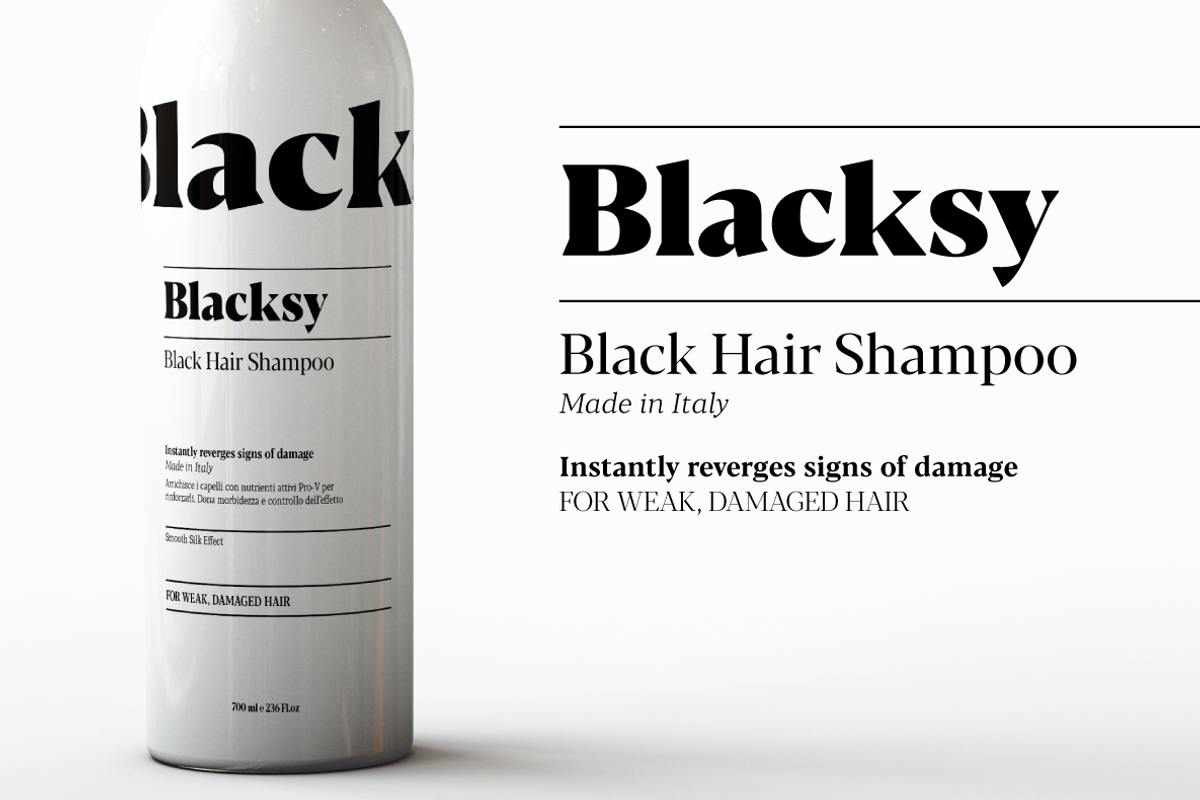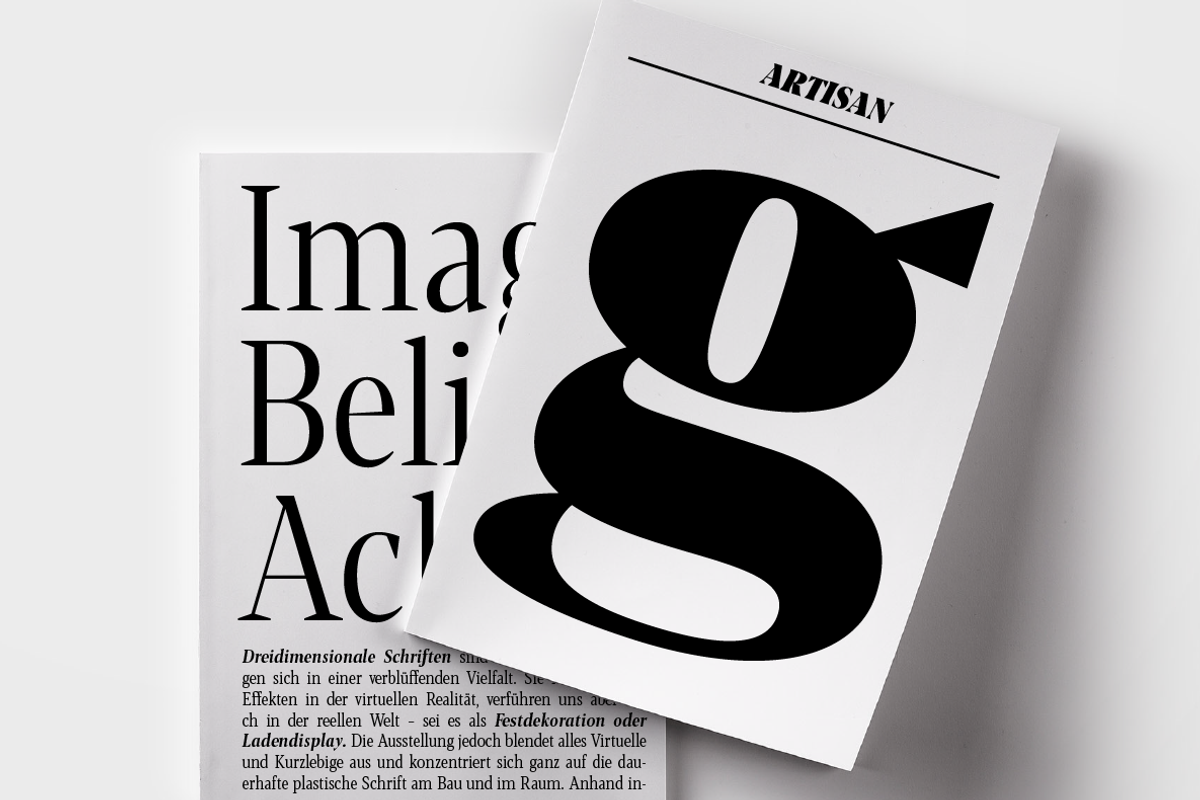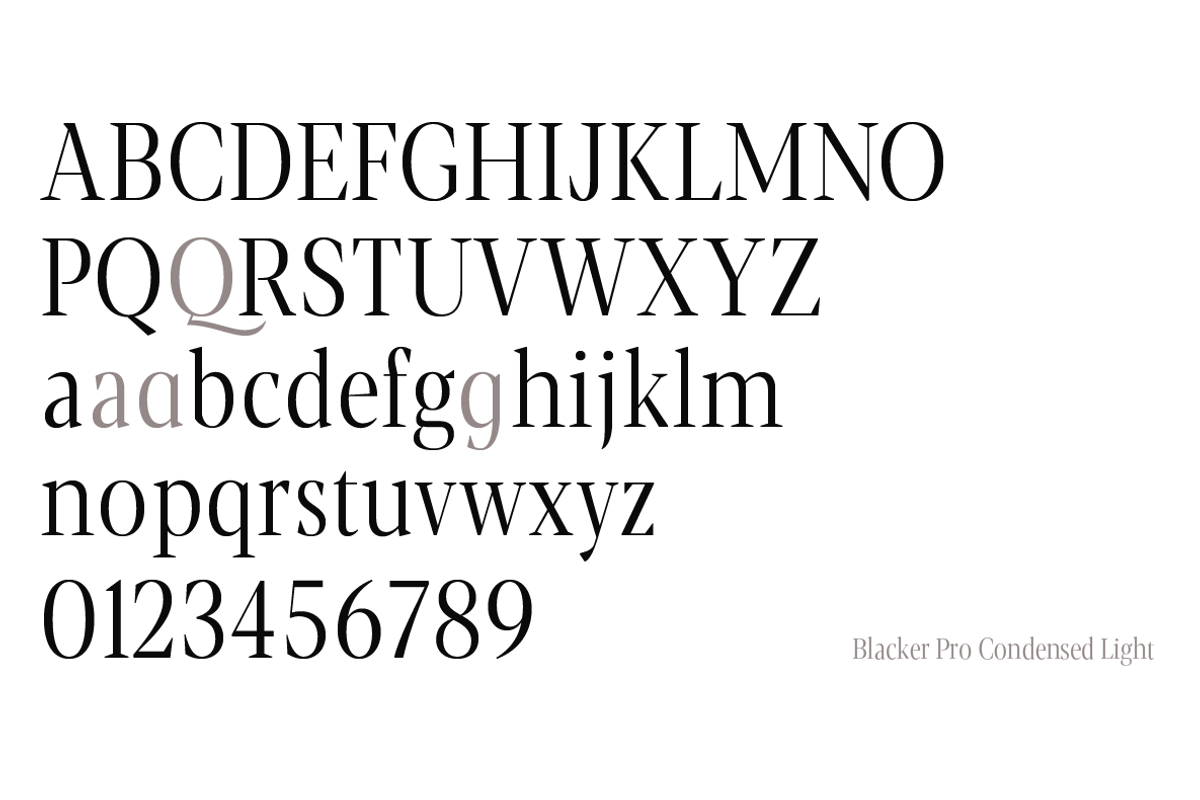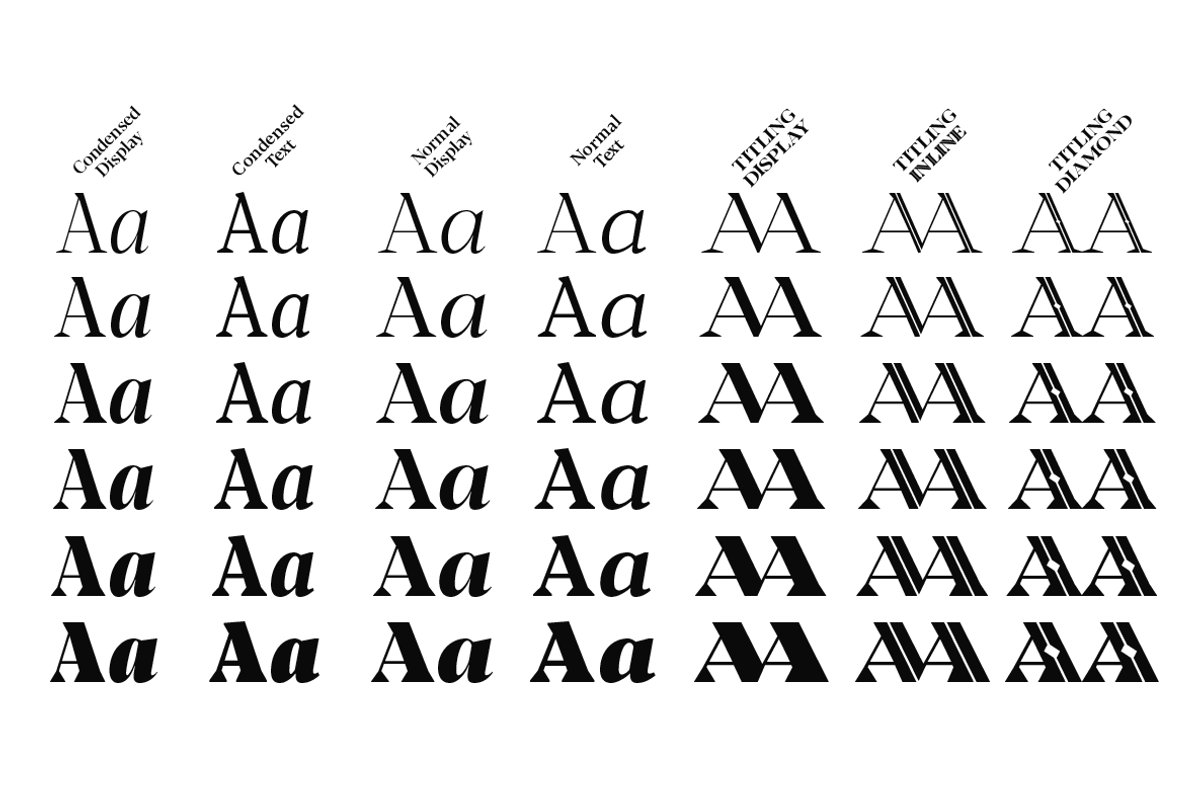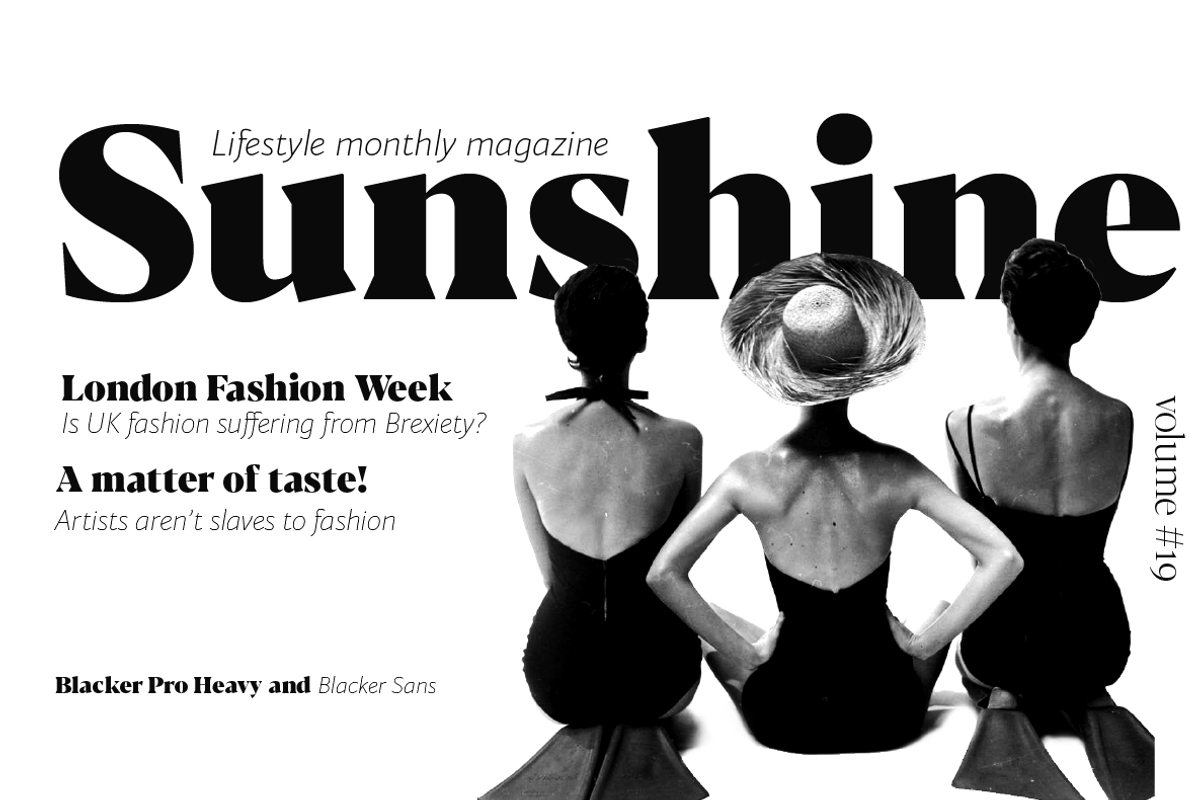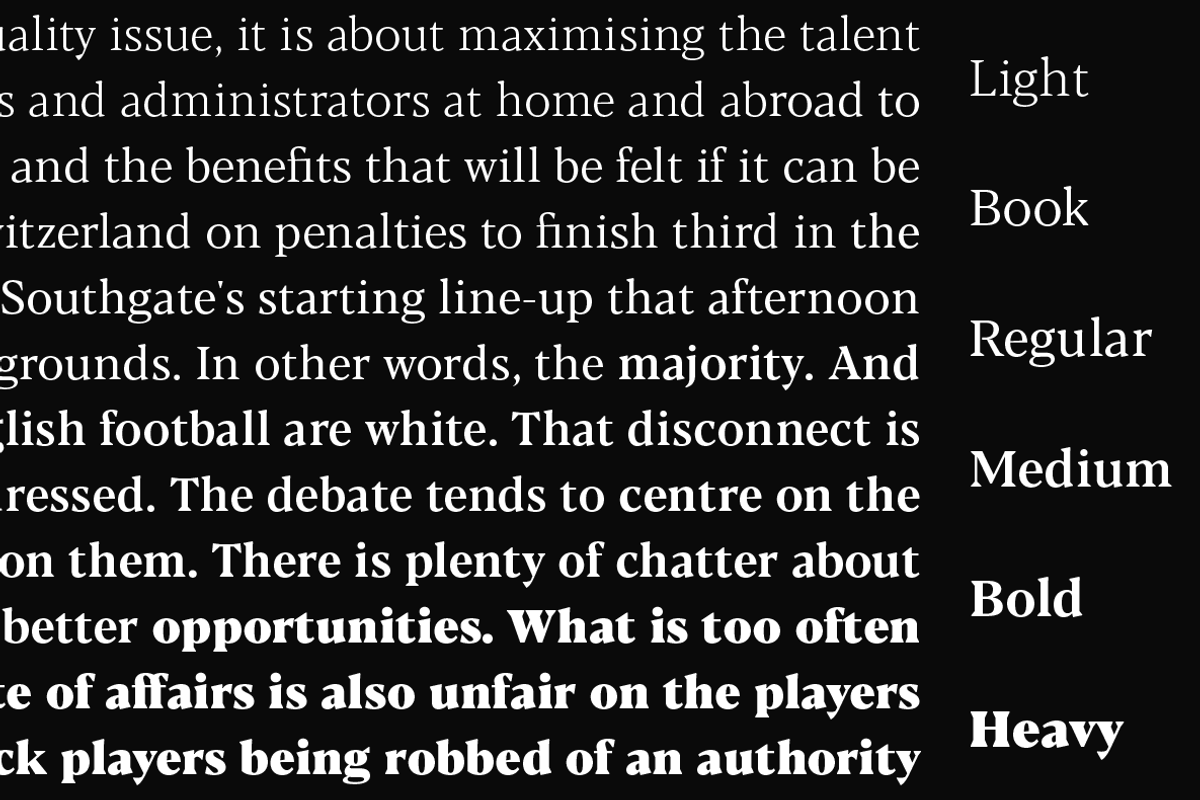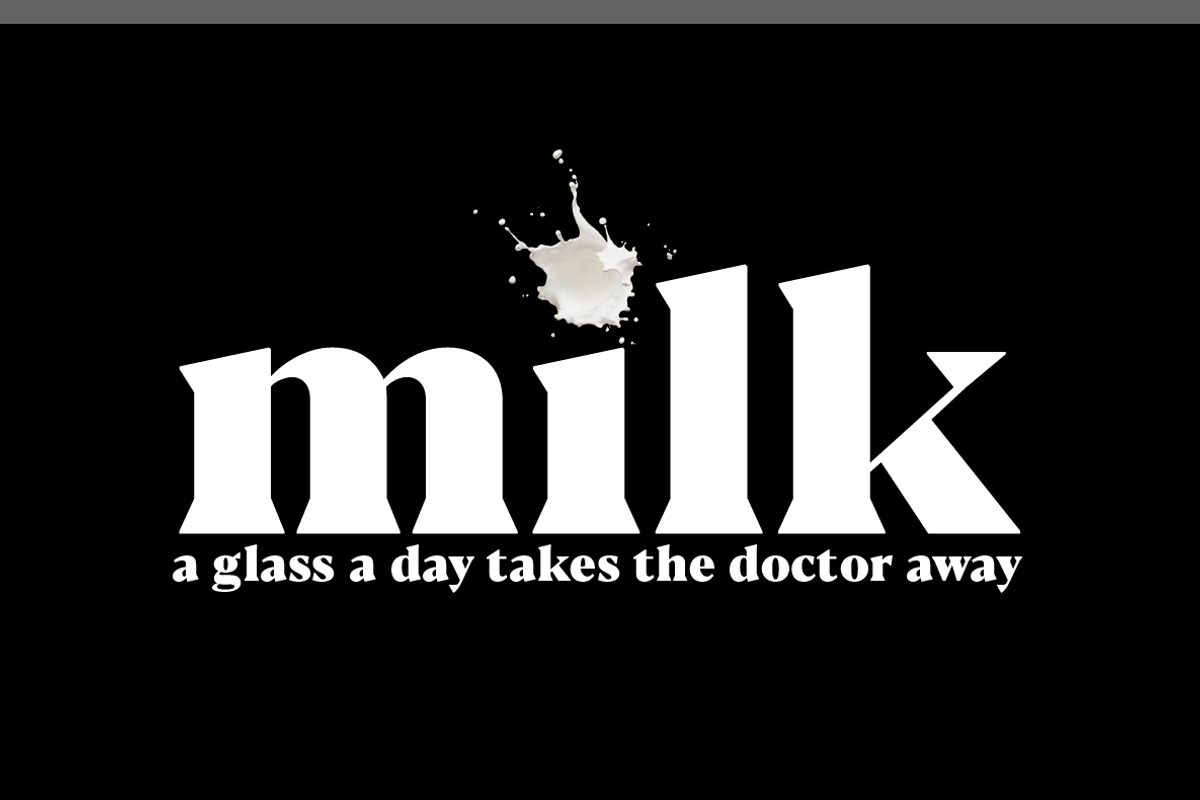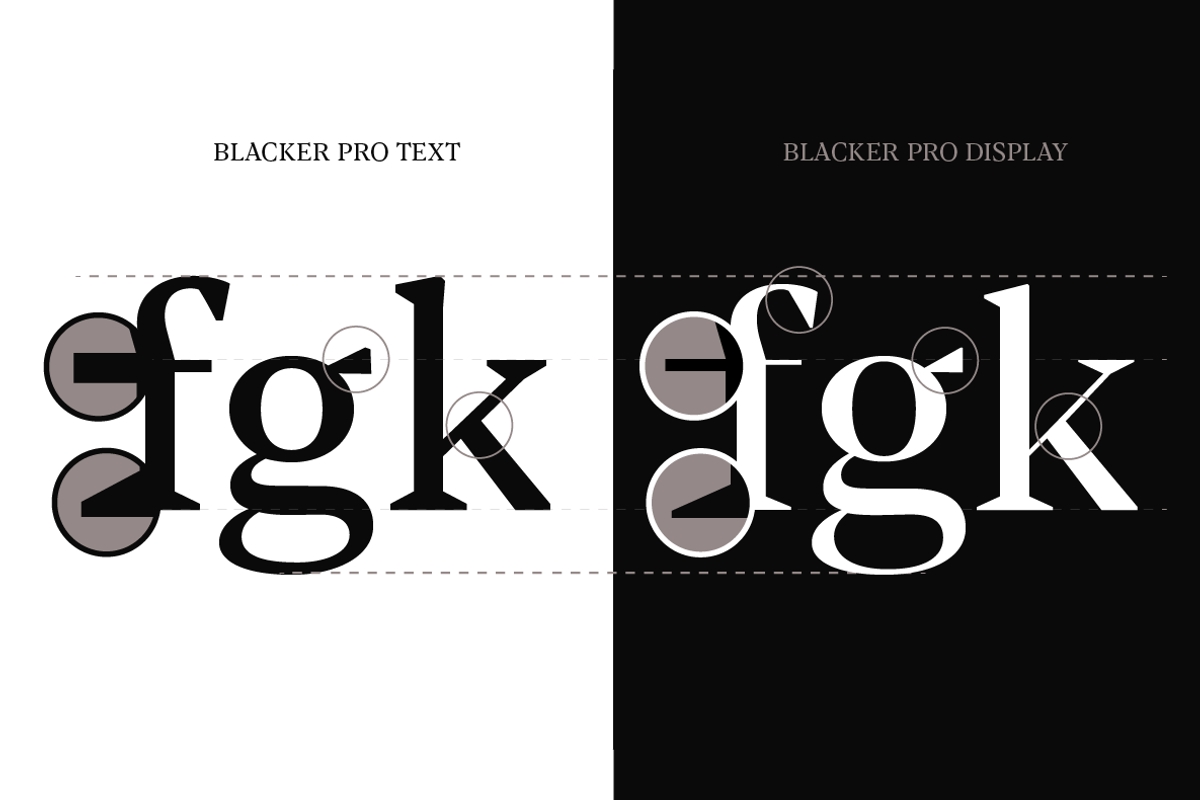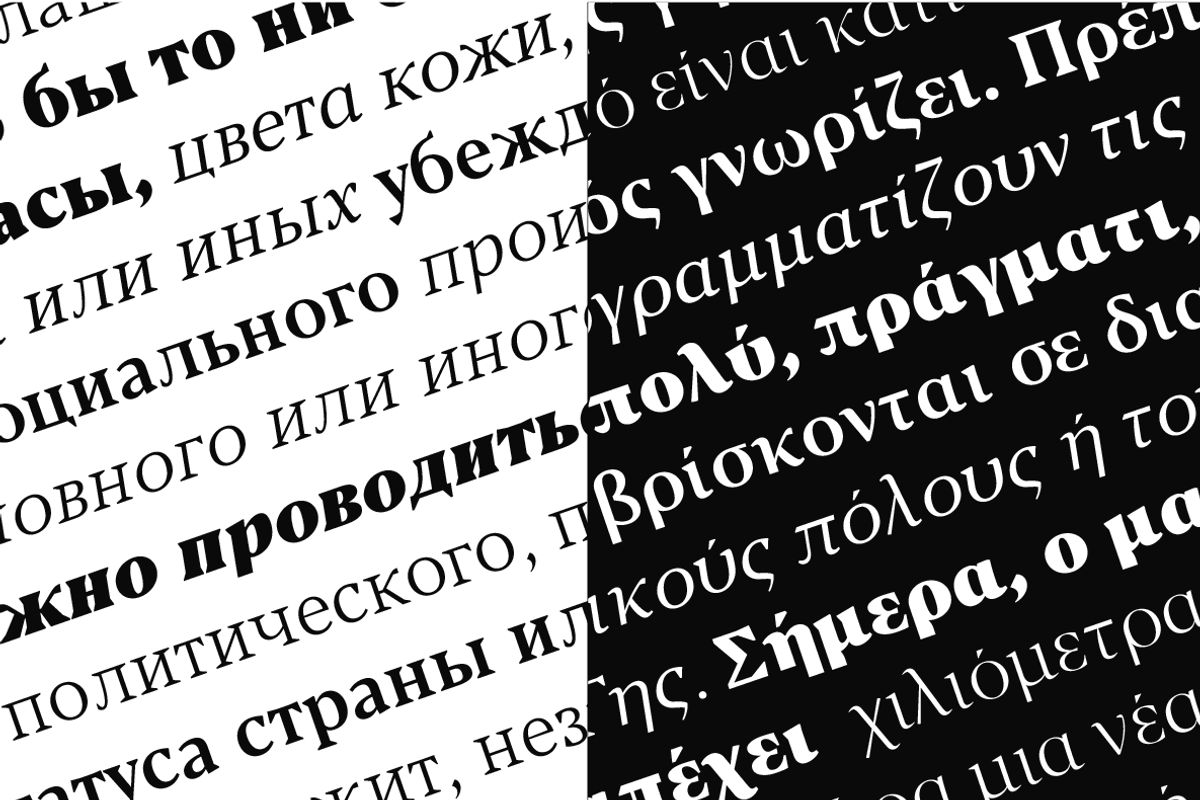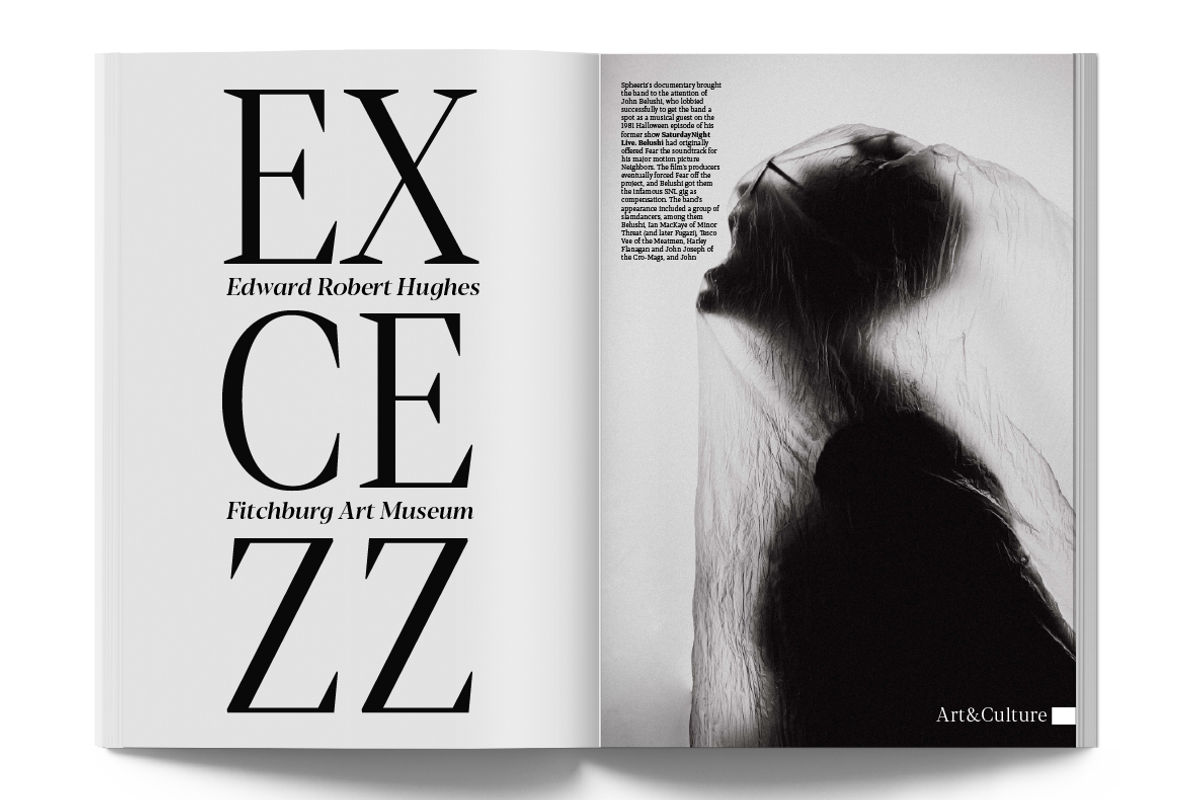
Blacker Pro - 69 fonts
Blacker Pro is the revised and extended version of the original wedge serif type family designed by Cosimo Lorenzo Pancini and Andrea Tartarelli in 2017. Blacker was developed as a take on the style that Jeremiah Shoaf has defined as the "evil serif" genre: typefaces with high contrast, oldstyle or modern serif proportions and sharp, blade-like triangular serifs.
Due to the high contrast in the design - slightly reminescent of didone typefaces - Blacker has been developed in two optical subfamilies. The display version offers tighter tracking, higher contrast and sharper corners for maximum effect at big sizes, while the text variant offers better readability and screen rendering at smaller sizes, with lower contrast and looser spacing.
In the pro version, two additional condensed variant families have been added (condensed display and condensed text) allowing for more freedom and versatility in typesetting where space constraints are present. Also, three titling uppercase-only variants have been added, with a slightly extended feel, and two decorative subfamilies (inline and diamond).
Each of these seven variants has been developed in six weights from light to heavy, with matching italics, for a total of 69 styles covering a wide range of editorial and advertising uses. All Blacker Pro feature a revised and extended character set covering over two hundred languages using the latin, cyrillic and greek alphabets. Open type features include small caps, positional numerals, fractions, superior & inferior figures, alternate forms, and an extended set of standard and discretionary ligatures.
With its bold personality, Blacker aims to be a modern classic used for bold statements and self-conscious brands, making your text look great both on paper and on the screens.